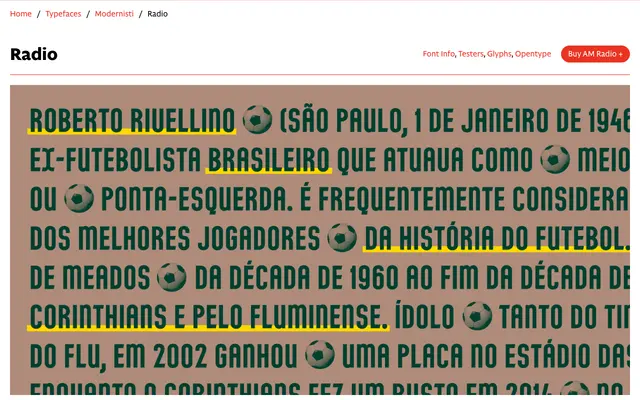
AM Radio
CAST · Maria Jarzyna · 2025
A digital revival of a 1930s Neapolitan metal typeface, distinguished by its inline vertical stems and diagonally cropped horizontal terminals.
Originally cast by Fonderia Tipografica Meridionale Armando De Luca in Naples around 1935, Radio is an all-caps monolinear sans with a modular construction. Its most striking feature is an inline that bisects vertical stems, with a solid stylistic set provided for small sizes where the inline becomes illegible. Designer Maria Jarzyna corrected inconsistencies in the original round forms, unified spacing, and redrew problematic characters including the ampersand and brackets while preserving the type's original rhythm and texture.
An all-caps, monolinear, modular sans with distinctive inline vertical stems and diagonally cropped terminals, reviving a 1930s Italian metal type. Its decorative inline feature and display-only character place it firmly in the display category.